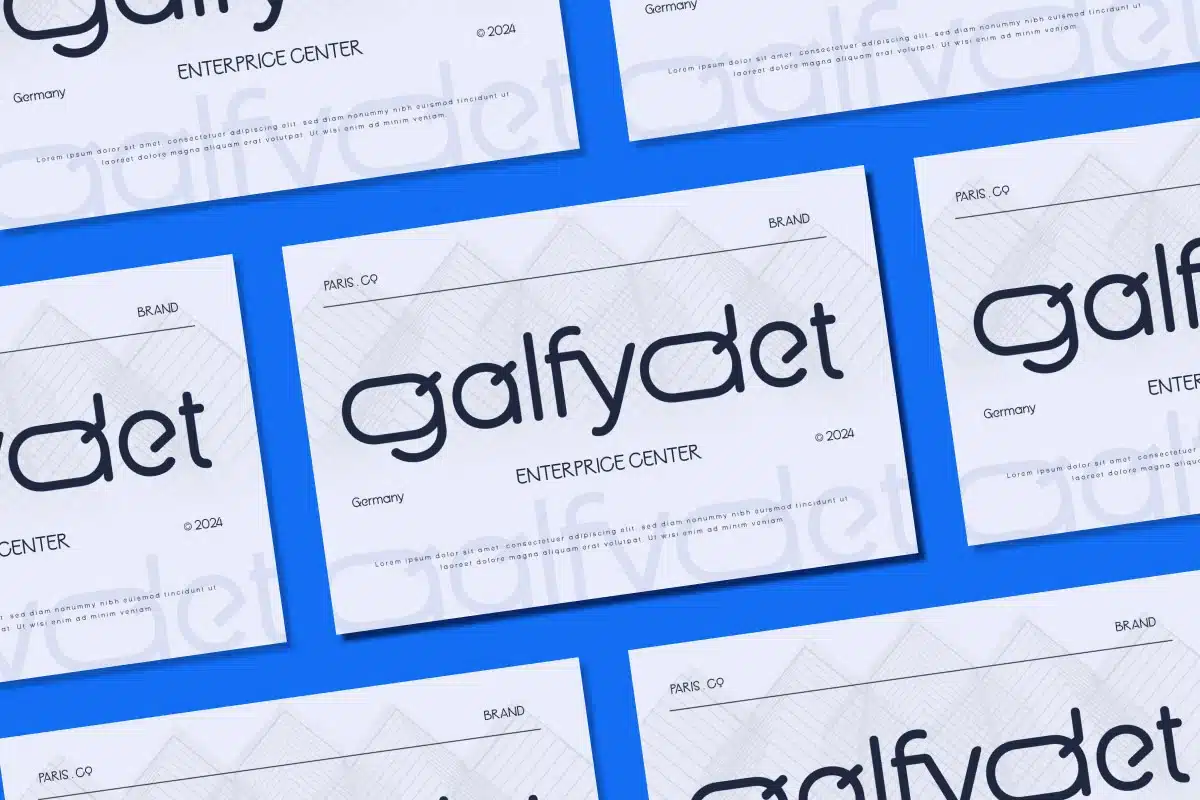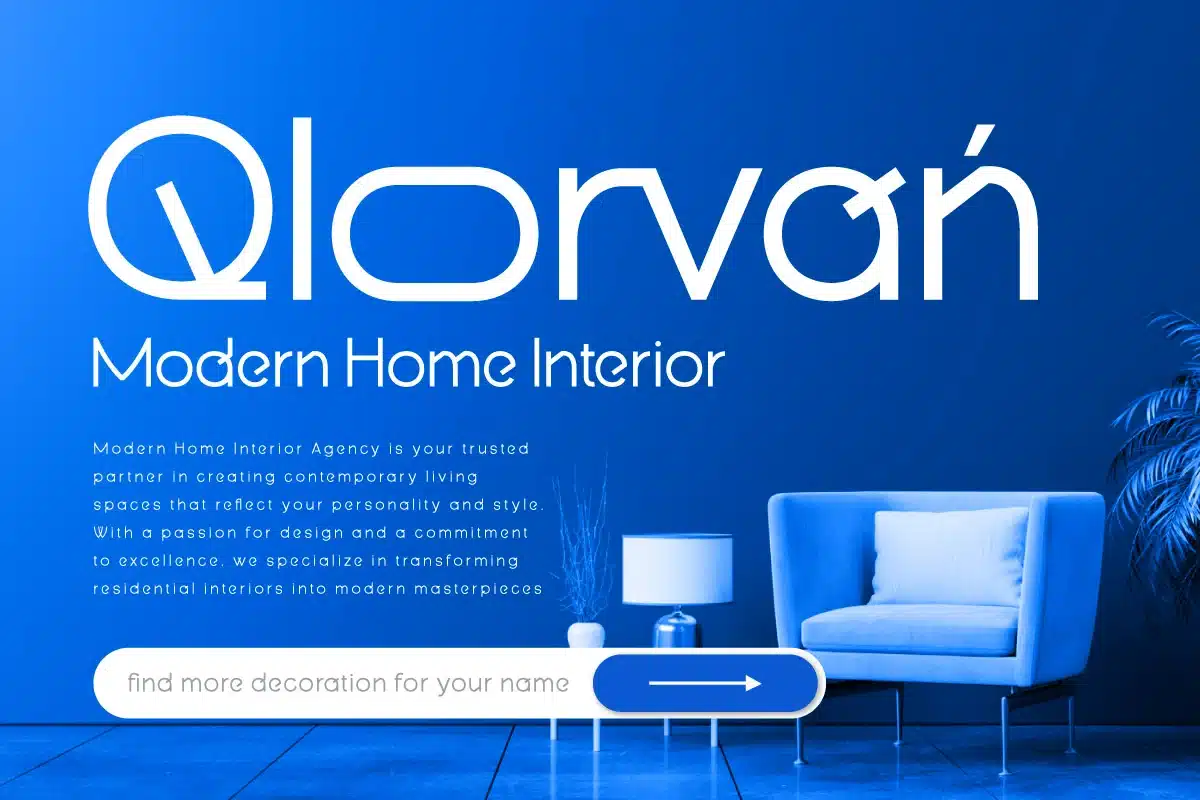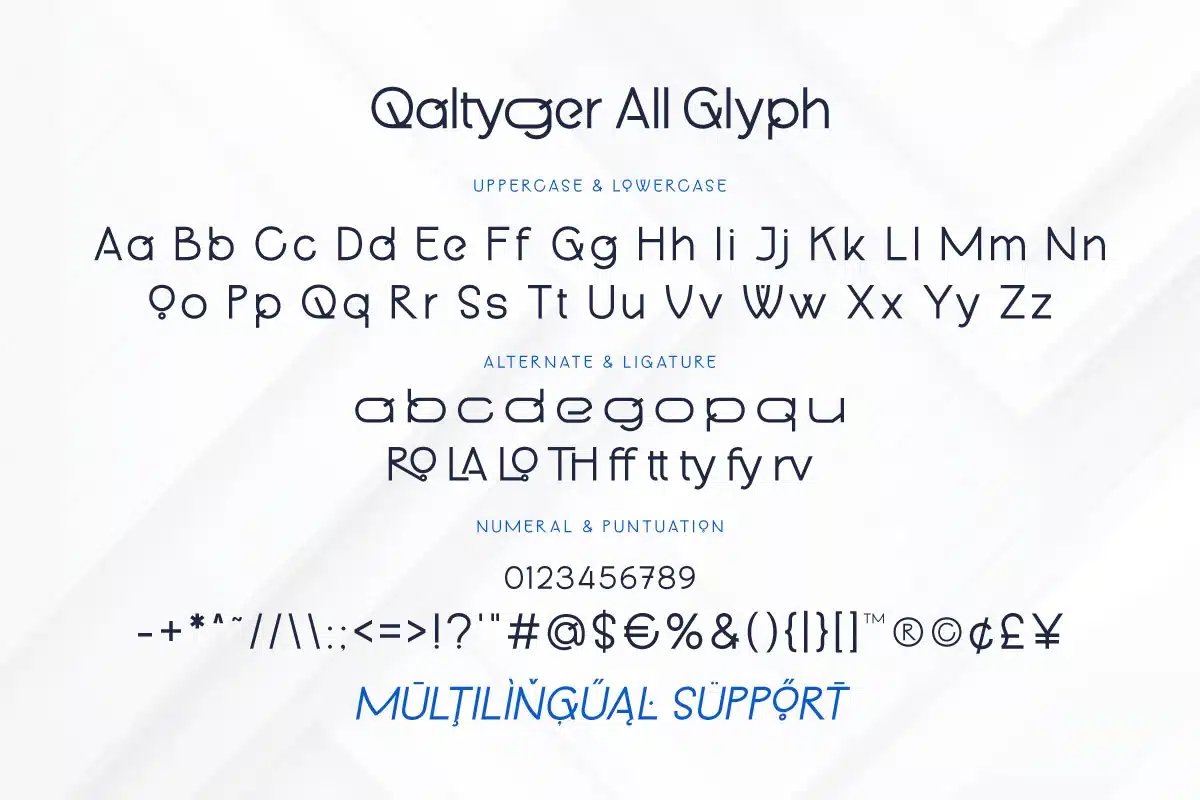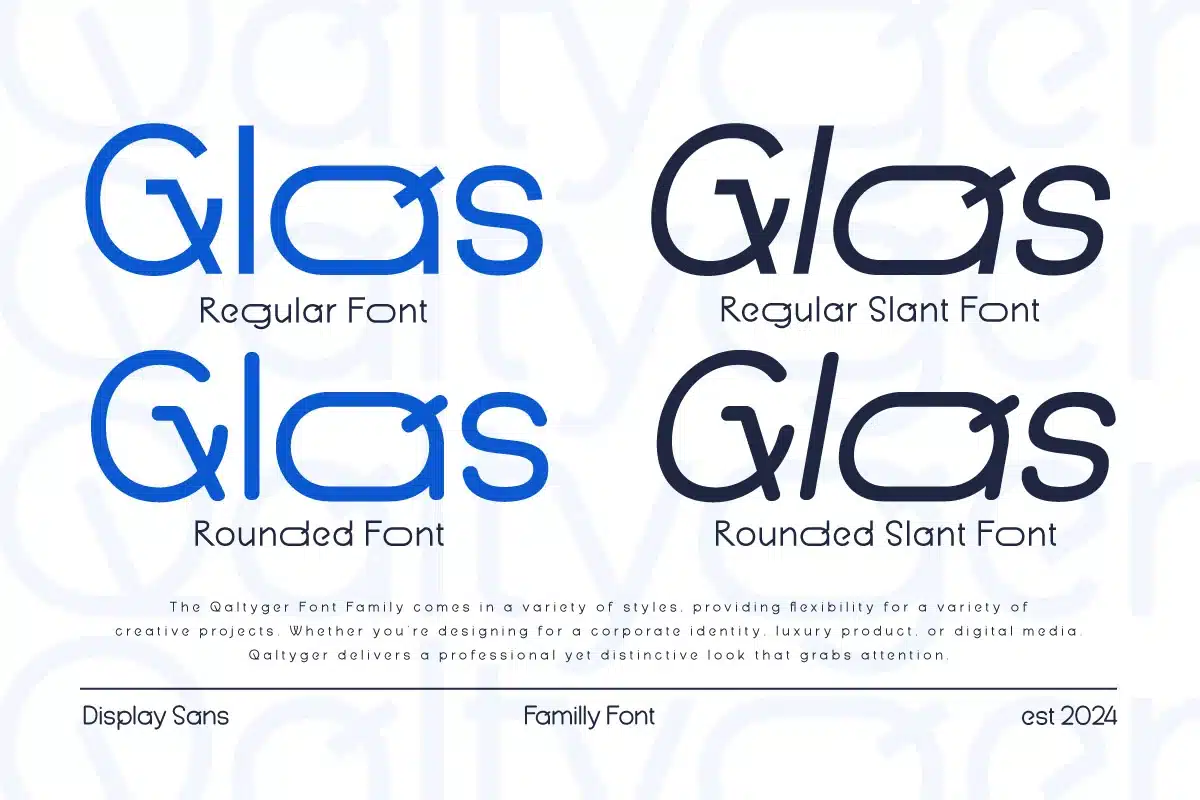
Qaltyger – Modern Logo Font
Qaltyger is a sleek modern logo font designed to bring a touch of sophistication and innovation to your branding. With its clean geometric lines and subtle futuristic style, Qaltyger offers a perfect balance between professionalism and creativity.
Available in Regular, Rounded, Regular Slant, and Rounded Slant styles, this font gives you flexibility to adapt across different branding needs. From corporate logos and startup identities to packaging, posters, and digital media, Qaltyger delivers a strong yet refined visual presence.
Featuring uppercase, lowercase, numerals, punctuation, and multilingual support, Qaltyger ensures your brand speaks clearly and stylishly to a global audience.